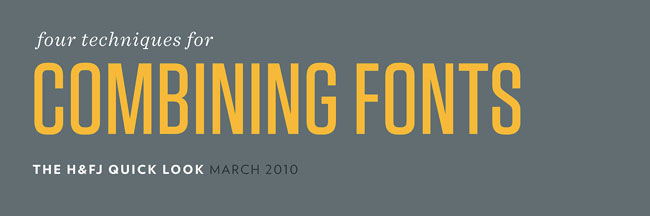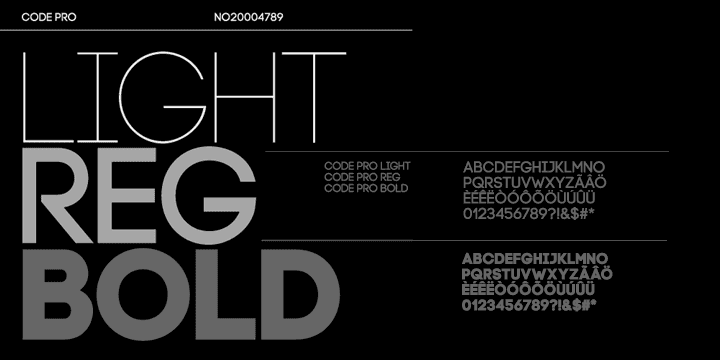
Combining Fonts Graphic Design. While good typefaces have prodigious families of carefully related styles, some of the best typography builds unexpected relationships between unrelated fonts. Ad download 100's of fonts, graphic assets, actions, icons & more!
The basic rule of font pairing says that the fonts you combine should have high contrast. The art of combining fonts. If you are looking for a soft and wholesome way to combine fonts, try using a script font with a sans serif font.
There Is Nothing Wrong With Comparing Two Different Fonts On The Same Design.
Use font weights to achieve hierarchy. Ad download 100's of fonts, graphic assets, actions, icons & more! Stylish modern fonts for graphic designers top best fonts was inspired by classic and modern fonts and typefaces.
Also Perfect For Children’s Book Covers And Greeting Cards, Designers Will Have A Lot Of Room To Experiment And Play Around With This Pick.
Here’s a guide, combined with an example to help you get font combinations right. It includes 12 different styles of fonts featuring more than 2700 glyphs. The family should be the same.
By Combining These Fonts Successfully You Will Achieve A Design That Is More Serine Than Other Font Combinations.
On The Other Hand, When You’re Trying To Achieve A Similar Style With Your Type But Want More Than One Font In A Design, It’s A Good Idea To Combine Two Different Fonts Of The Same Typeface.
Graphic design for game designers. Try to convey the mood of the content. Combine fonts from the same designer.
The art of mixing typefaces. The art of combining fonts. See more ideas about fonts, typography fonts, fonts design.